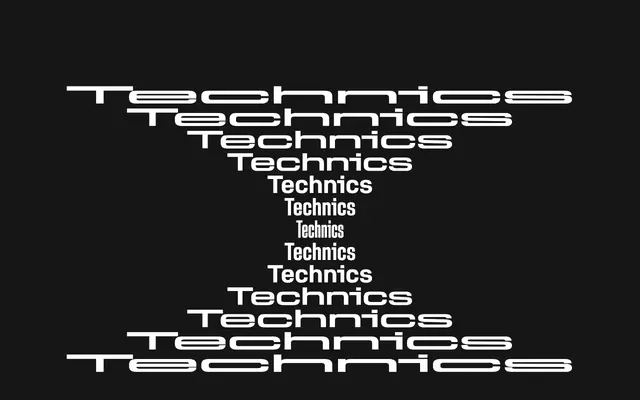
Stardust
Newglyph · Ian Party
A neo-grotesque sans by Ian Party from Newglyph, offered in 132 styles with a variable font axis covering weight, width and italic.
Designed by Ian Party and released through Newglyph, Stardust draws on neo-grotesque principles to produce a clean, modern sans-serif with 431 glyphs per style and broad Latin language coverage spanning over 80 languages. The family ships as 132 static styles alongside a single variable font covering weight, width and italic axes. The glyph set includes ligatures, stylistic alternates and an extensive range of accented characters suited to European language publishing.
The foundry explicitly positions Stardust within neo-grotesque principles, emphasising modernity and simplicity — hallmarks of the neo-grotesque genre derived from mid-century Swiss typography.